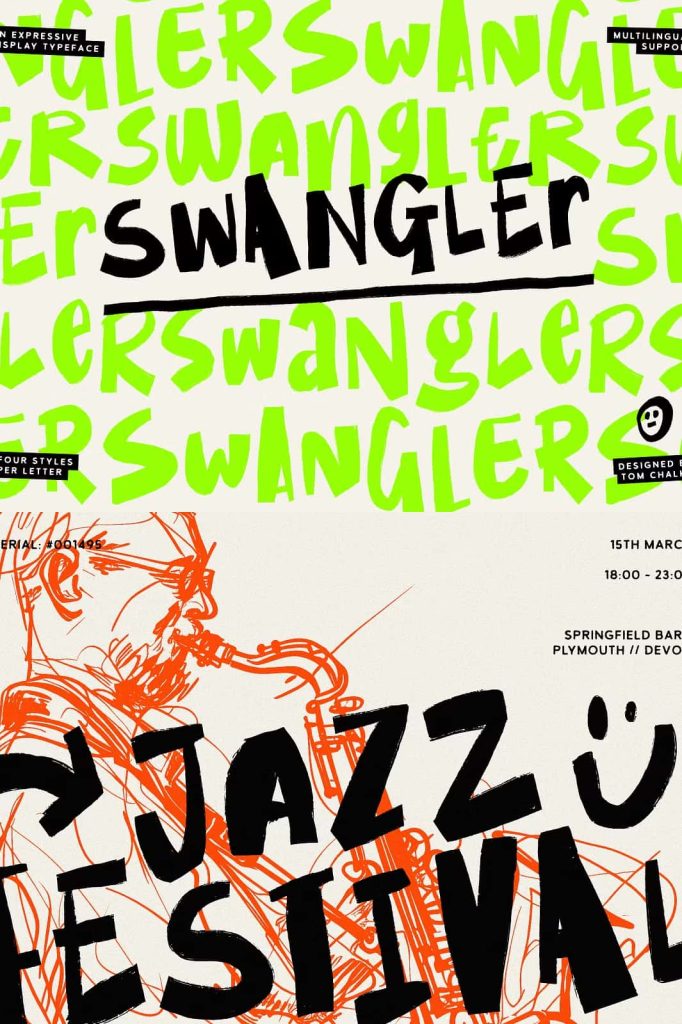
Introduce a splash of spontaneity and flair to your designs with ‘Swangler,’ a typeface that’s as bold and confident as it is expressive. Swangler is designed not just to be read, but to be experienced, making it perfect for projects that require a touch of personality and impact.